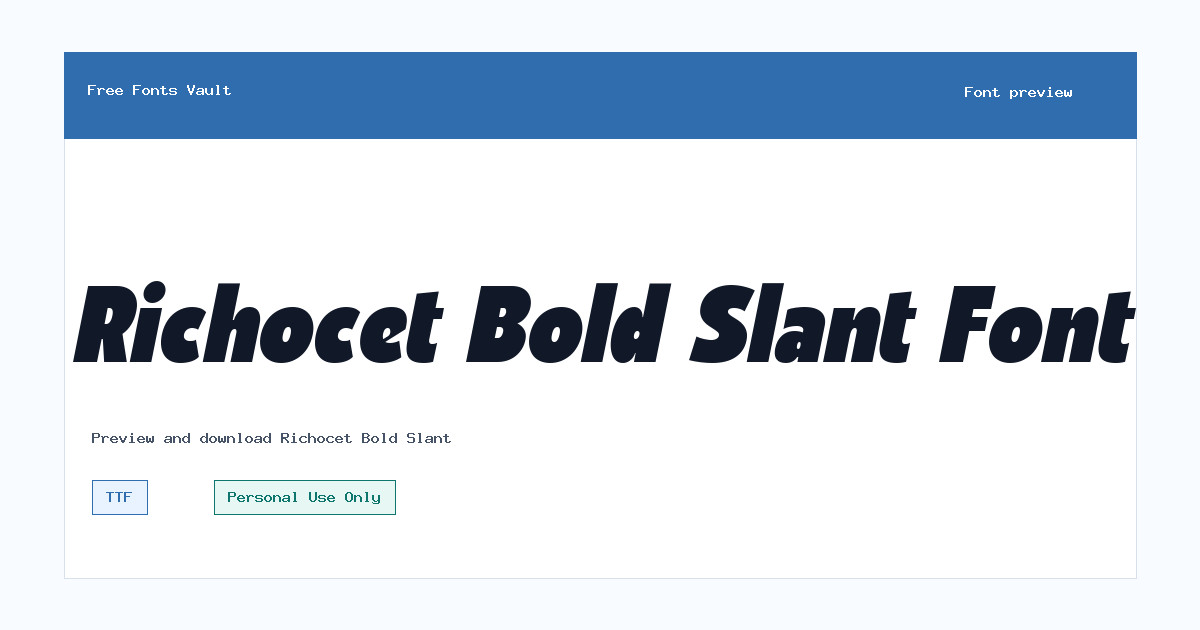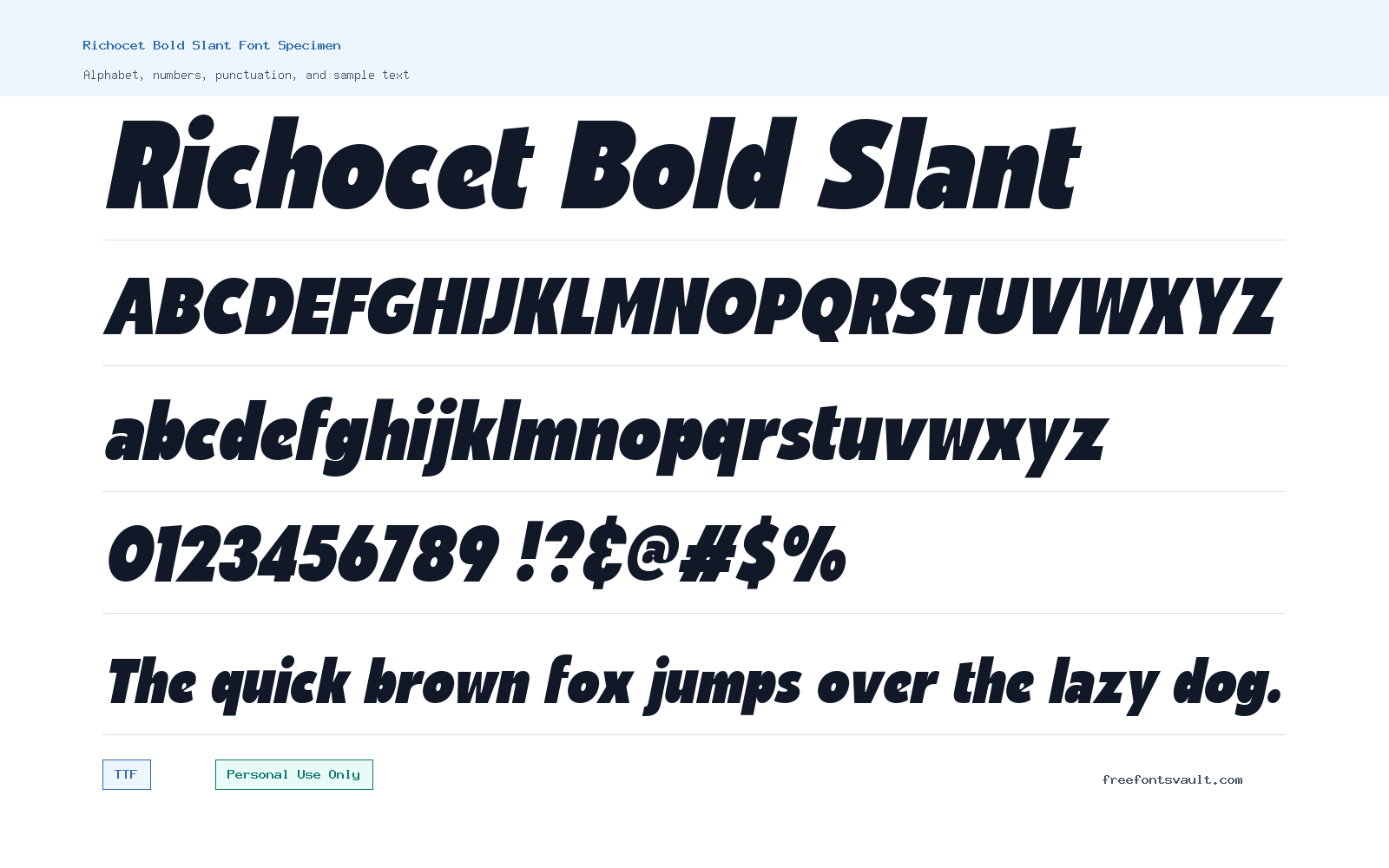
Richocet Bold Slant
Richocet Bold Slant Font
Richocet Bold Slant font.
Richocet Bold Slant is a heavy slanted sans serif font with a strong forward-leaning look. It is best tested in short words, titles, and display settings where bold shape and movement matter more than long-form reading.
About Richocet Bold Slant
Richocet Bold Slant uses a bold weight and angled letterforms to create a direct, energetic display style. The font file is a TTF and the listed weight is 700, so it is better suited to standout text than quiet body copy. Use the preview tool to check how your exact word looks, especially if you plan to use all caps, tight spacing, or a short brand-style phrase.
This font can work well for posters, thumbnails, sports-style graphics, gaming visuals, event headers, stickers, and social media text. Because it is both bold and slanted, it can feel crowded if used in long sentences or small sizes. For cleaner layouts, pair it with a simple upright sans serif for descriptions, captions, dates, and other supporting text. Keep Richocet Bold Slant for the main word or headline, then let a calmer font handle the details.
• Bold 700-weight sans serif style with a slanted display look
• Short headlines, logos for personal mockups, posters, and social graphics
• Gaming, sports, event, sticker, and thumbnail-style lettering
The designer is listed as Glyphminds Studio (Graphicted.Co), with Graphicted.Co given as the designer website.
What kind of font is Richocet Bold Slant?
It is a bold slanted sans serif display font. The listed font weight is 700, and the file format is TTF.
What projects is this font good for?
It is a good fit for short display text such as posters, social media graphics, thumbnails, event titles, gaming-style headers, and personal logo mockups.
Should I use Richocet Bold Slant for paragraphs?
It is not the best choice for long paragraphs. The bold slanted style works better in short headlines, while a simpler upright font will be easier to read for body text.